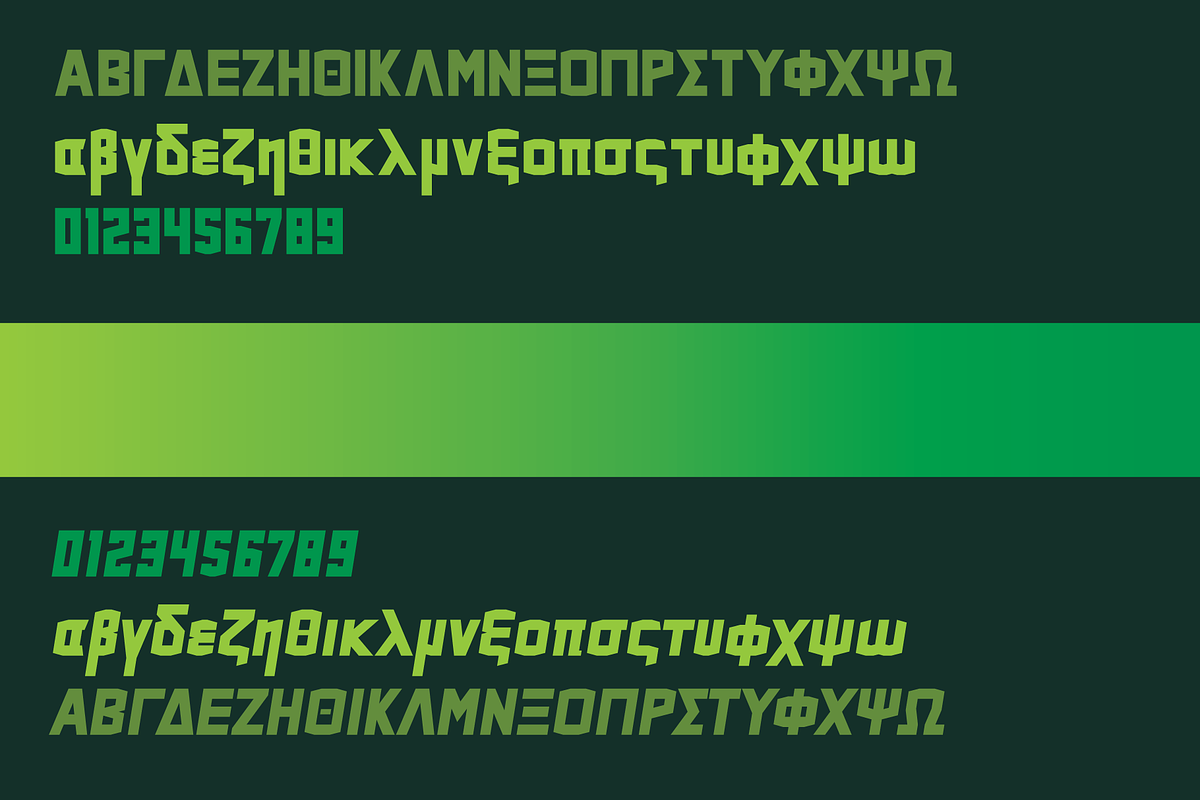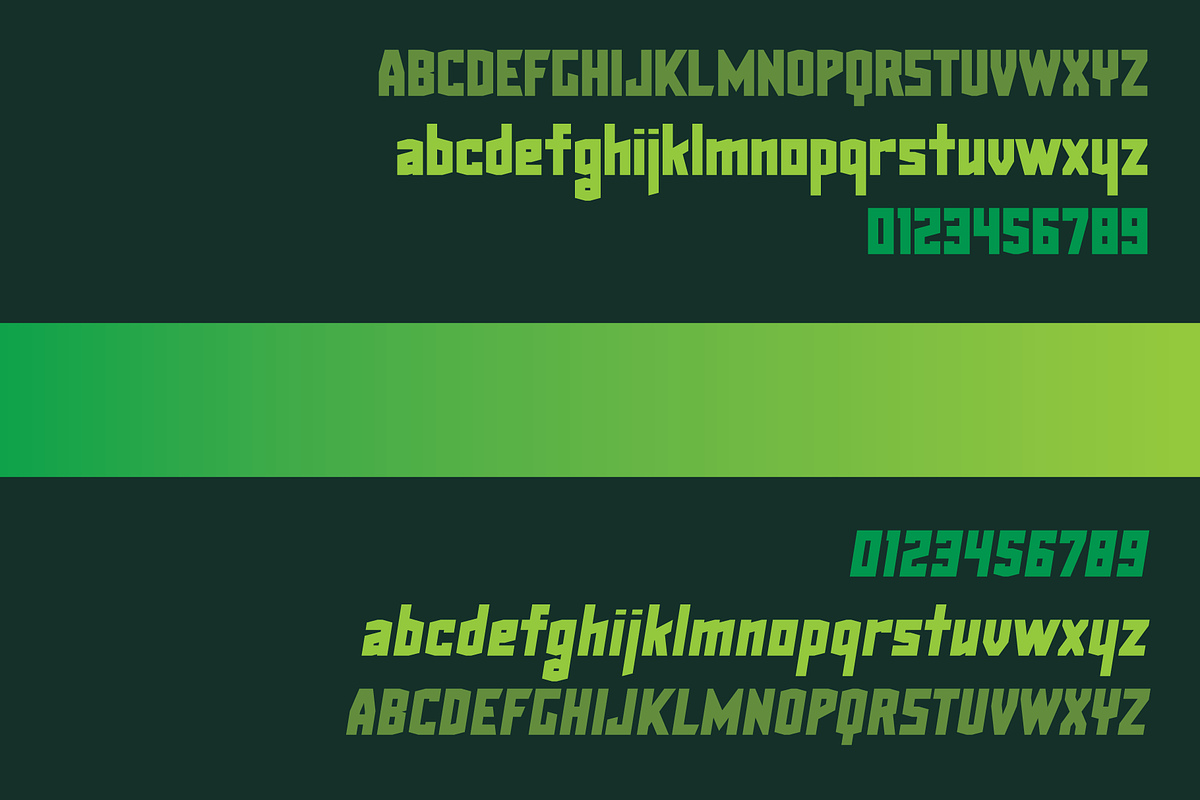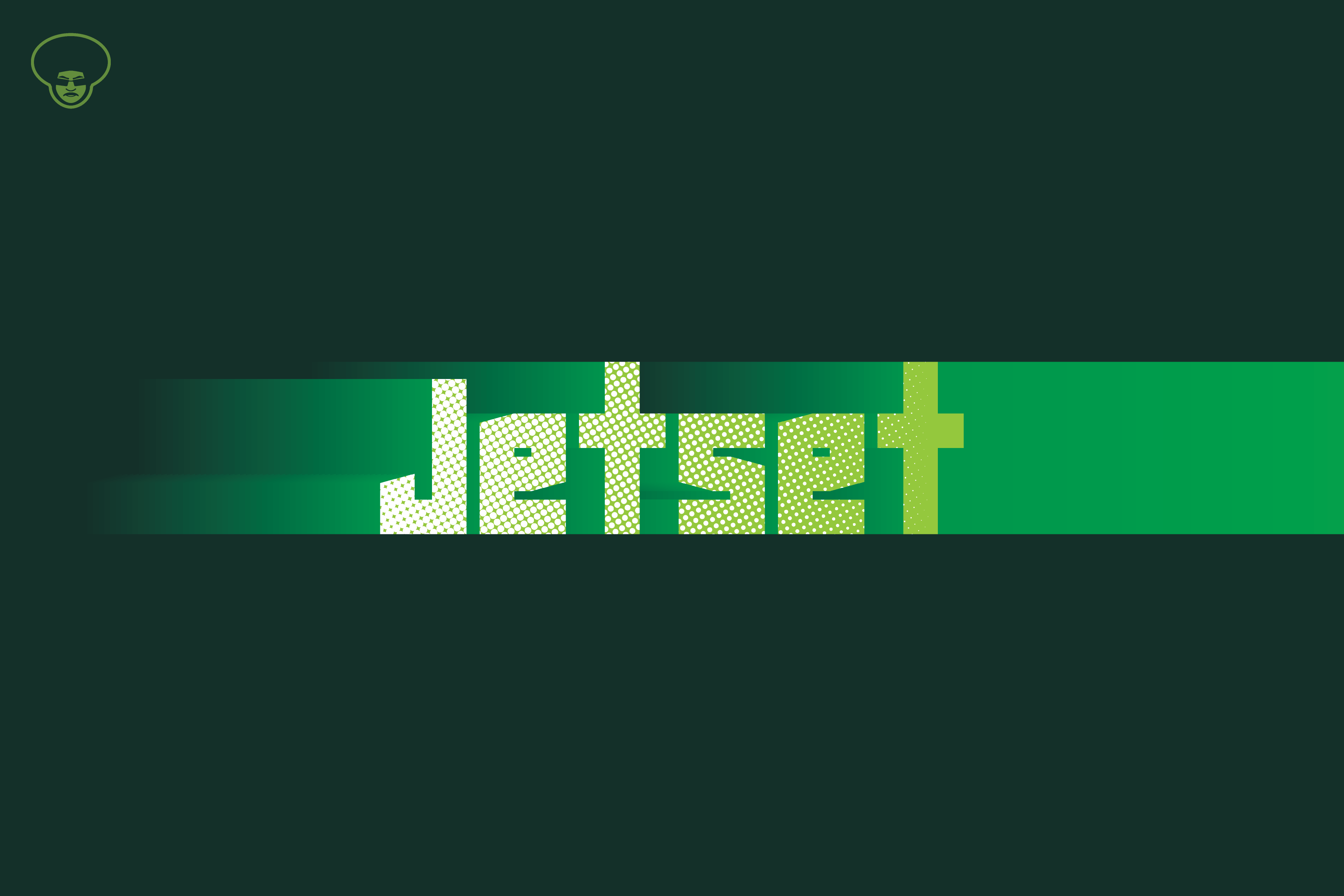
Jetset Typeface
Bold, blocky, angular. A hard hitting typeface with no curves. Just pure sharp edges and optimized kerning for maximum legibility. This typeface started off as a quick personal branding project for a few NFL (National Football League) franchises in 2020. The team that inspired the name and style of this particular typeface are the New York Jets.
- Comes in two font styles: Regular and Italic
- Two scripts: Latin and Greek